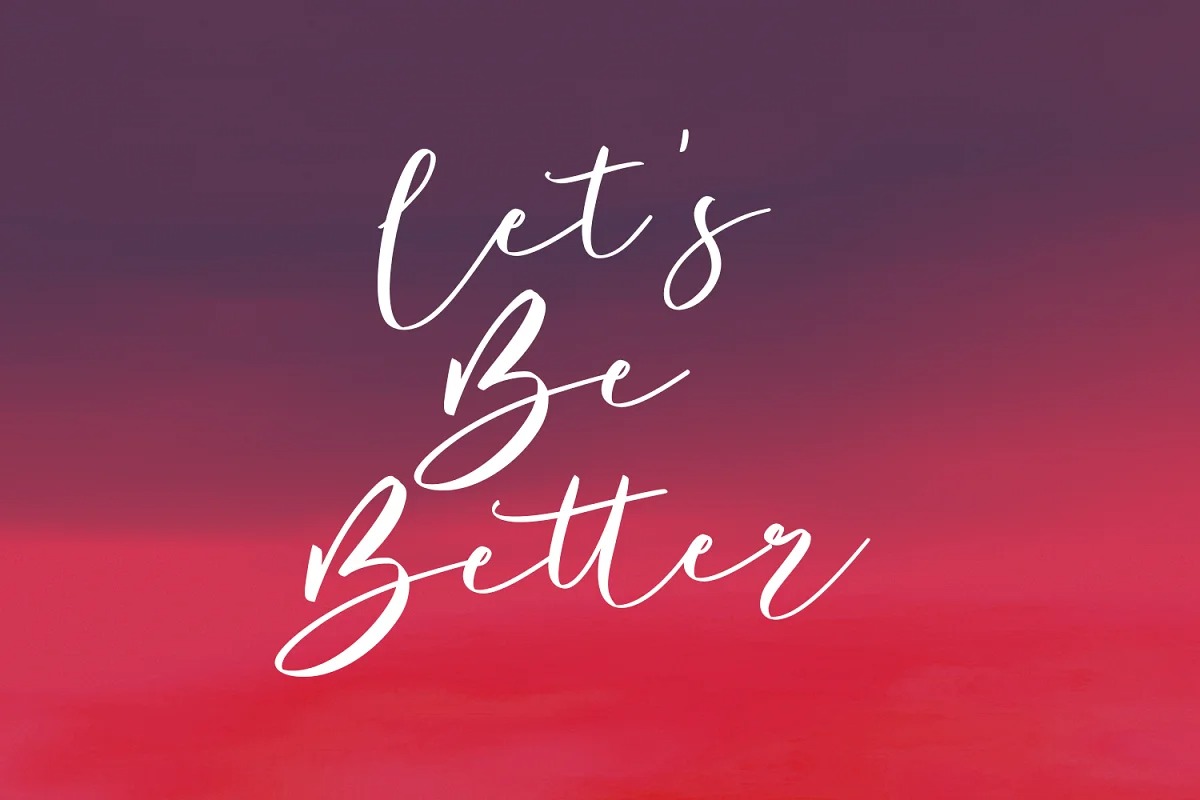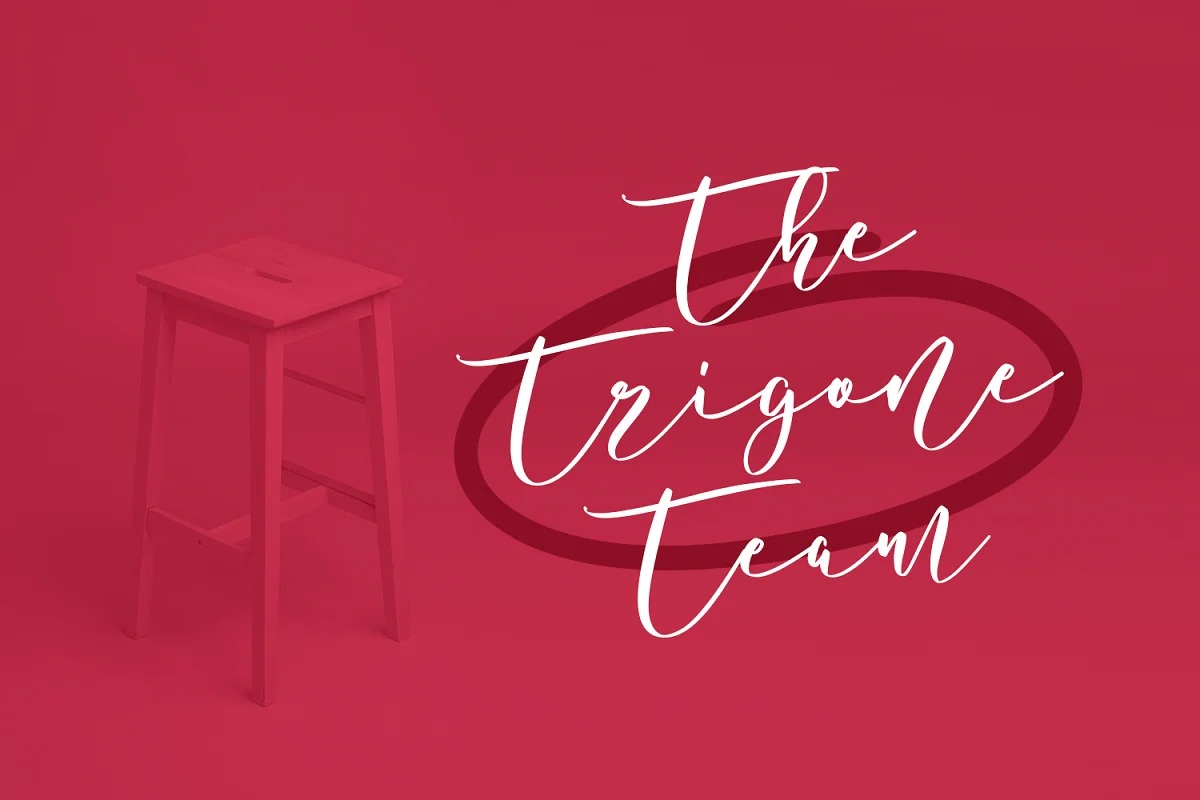
Bottomvega Font
Bottomvega Handwritten Font
This font designed by Maulana Creative is an excellent handwritten script typeface, with feminine high contrast thin stroke, super slanted and fun character. It has Opentype features ligatures of character, To give you an extra creative work. Bottomvega font support multilingual more than 100+ language. This font is good for logo design, Social media, Movie Titles, Books Titles, a short text even a long text letter and good for your secondary text font with sans or serif. Make a stunning work with Bottomvega font.